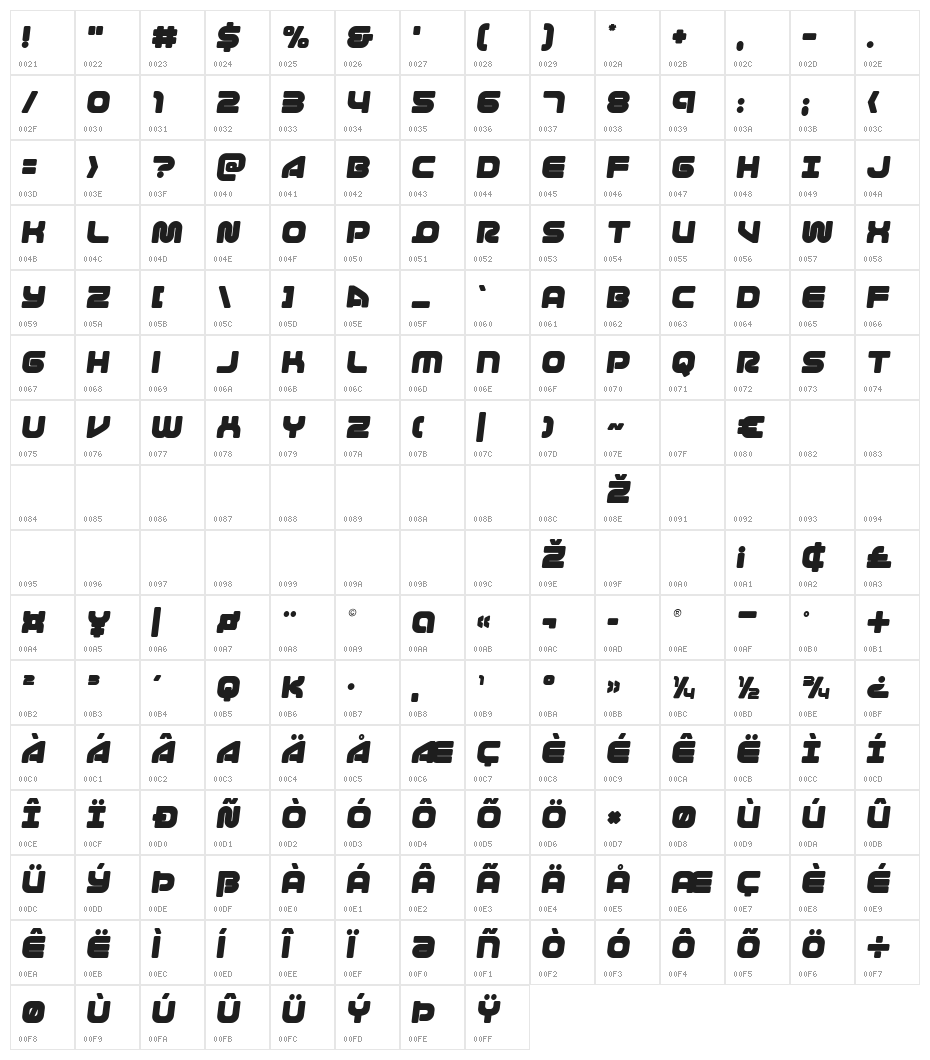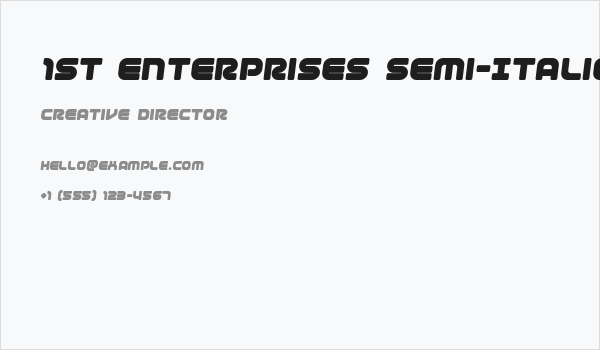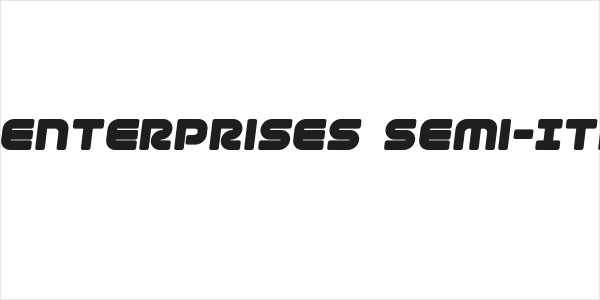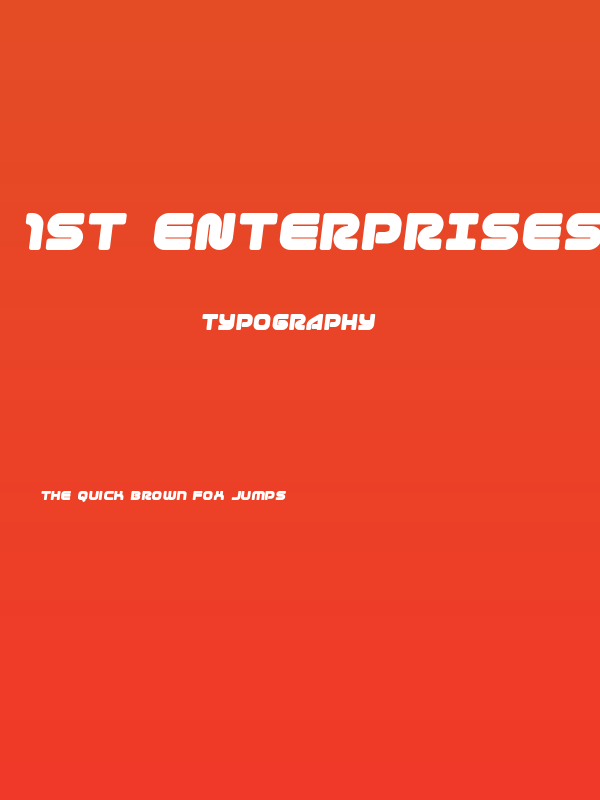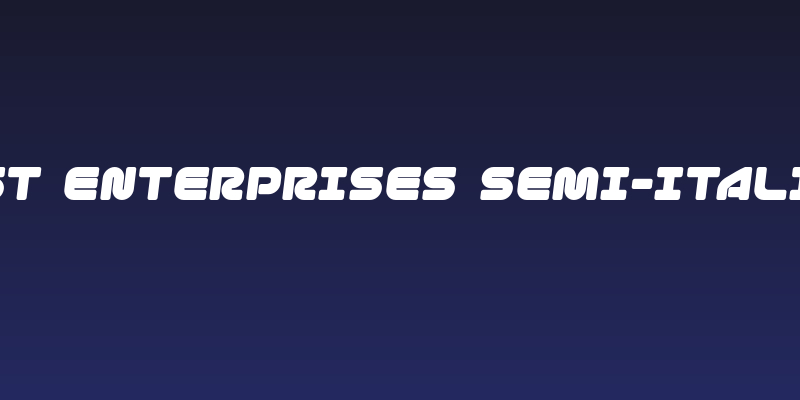
1st Enterprises Semi-Italic Font
1st Enterprises Semi-Italic Description
This font features a bold and rounded style with a semi-italic slant, giving it a dynamic and modern appearance. The characters are uniformly thick, providing a strong visual impact. The rounded edges soften the overall look, making it approachable and friendly. The uppercase and lowercase letters maintain a consistent design, ensuring readability and cohesion across different text sizes. The numerals and special characters are designed to match the bold and rounded aesthetic, ensuring a harmonious appearance throughout. This font is well-suited for projects that require a contemporary and engaging look.
| Proposed Projects | Ideal for branding, advertising, headlines, and digital media where a modern and bold statement is needed. |